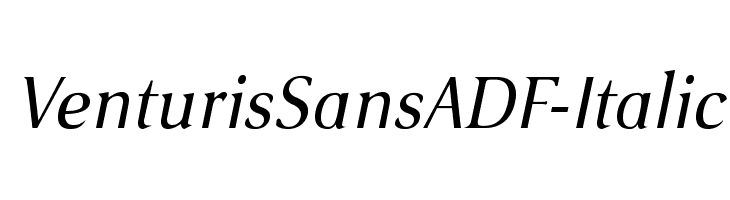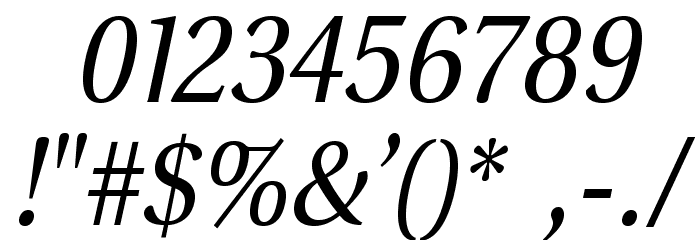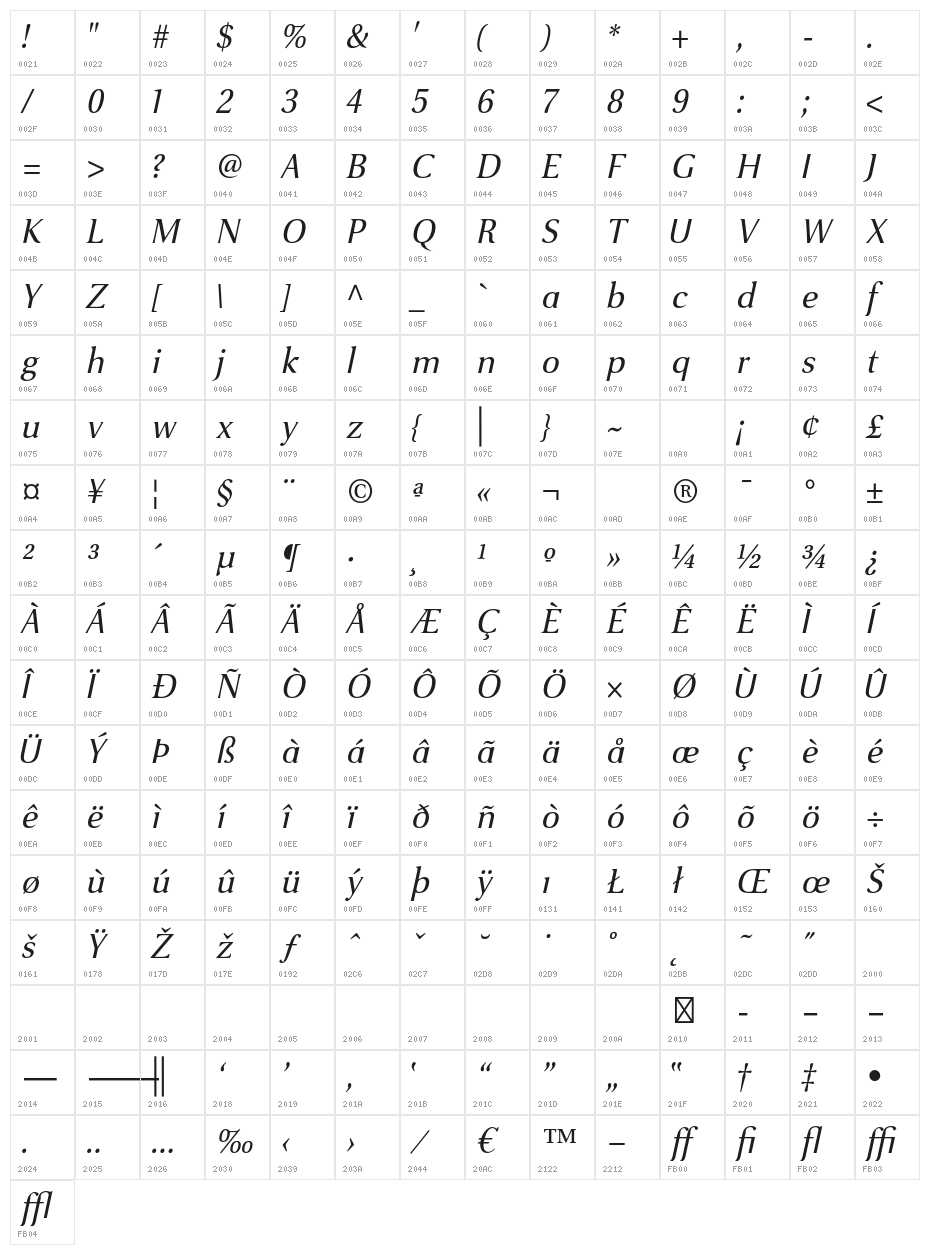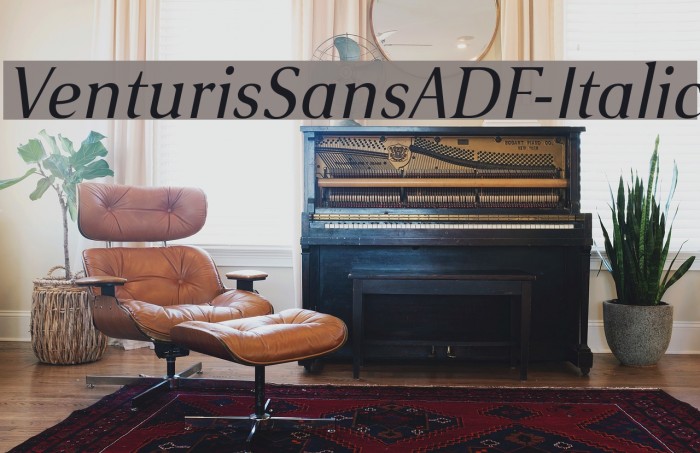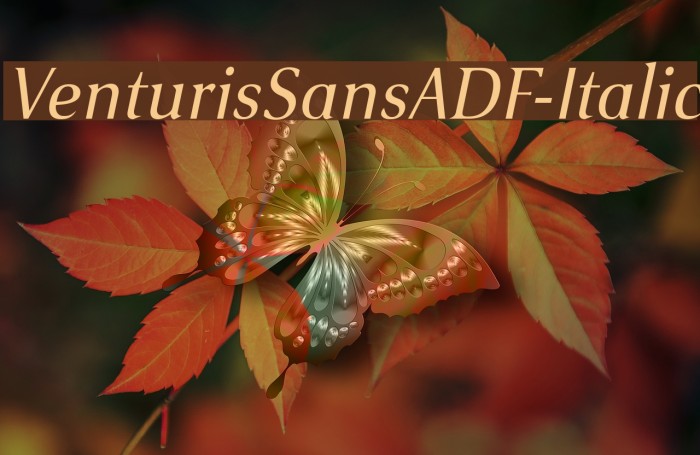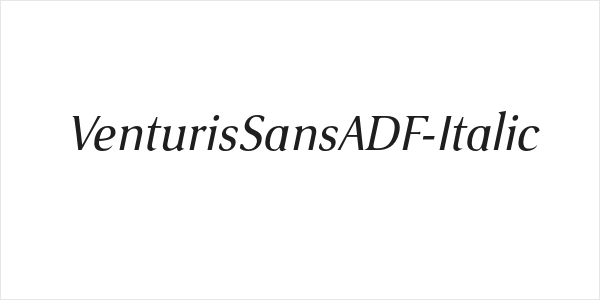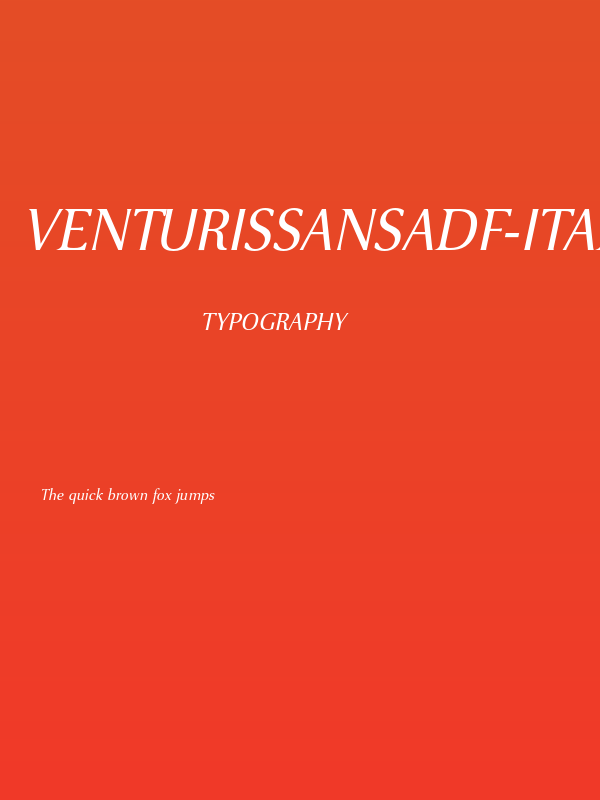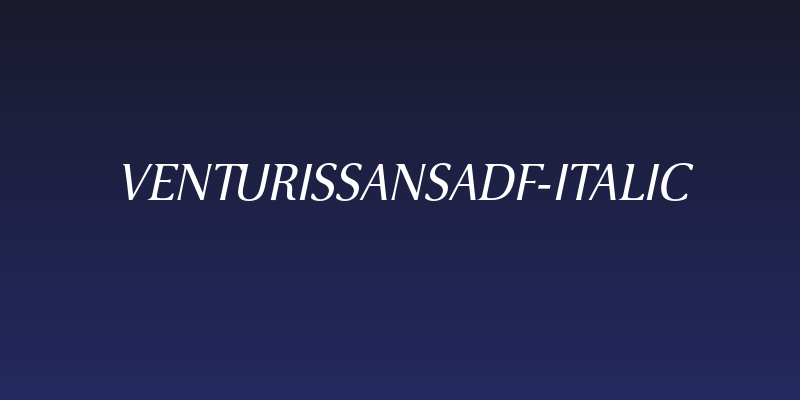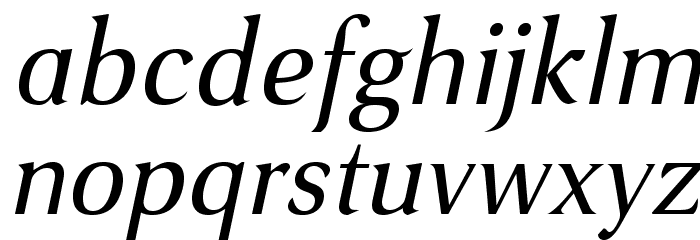
VenturisSansADF-Italic Font
VenturisSansADF-Italic Description
This font exhibits a refined and elegant italic style, characterized by its smooth, flowing curves and moderate stroke contrast. The letters are slightly slanted, enhancing the dynamic and sophisticated appearance. The uppercase letters are tall and commanding, while the lowercase letters maintain a harmonious balance with their rounded forms. The numerals are clear and distinct, ensuring readability. Special characters are well-integrated, maintaining the overall aesthetic. This font's design is both timeless and versatile, suitable for a variety of applications.
| Proposed Projects | Ideal for projects requiring a touch of elegance, such as wedding invitations, luxury branding, editorial design, and high-end product packaging. |